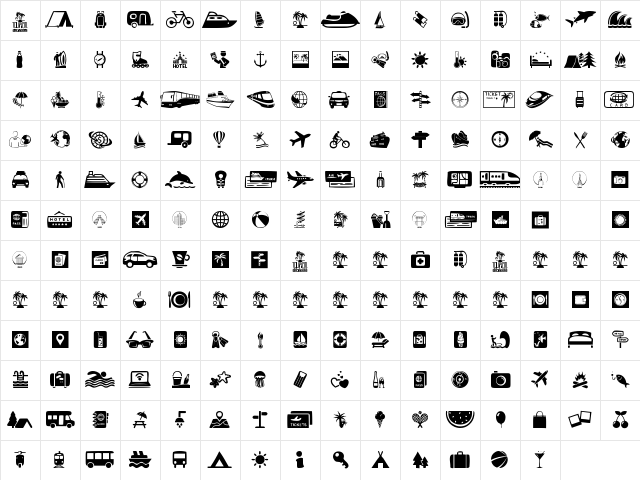
Tourism Regular
Design Context for Tourism
Tourism is a composed and adaptable typeface that performs quietly and consistently across a wide range of design contexts.